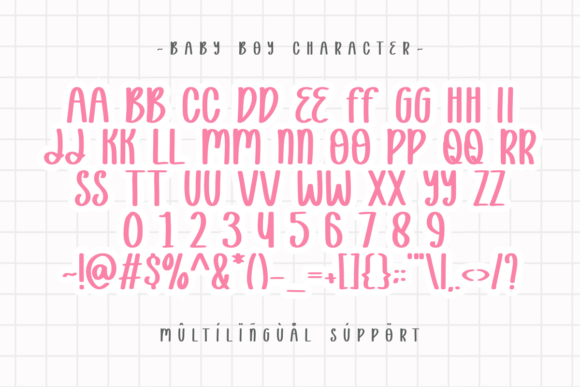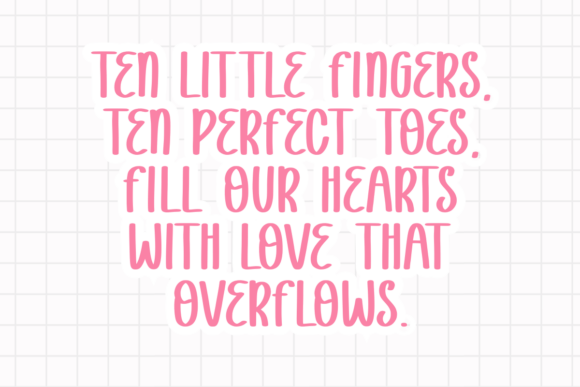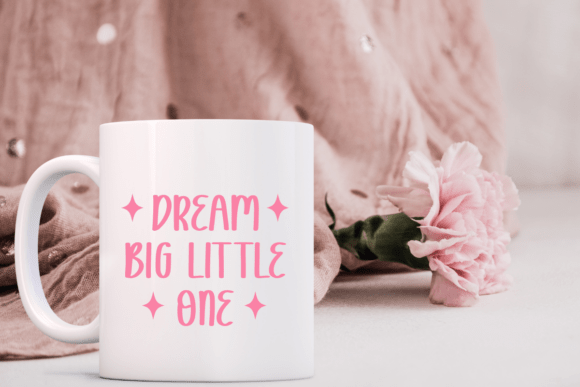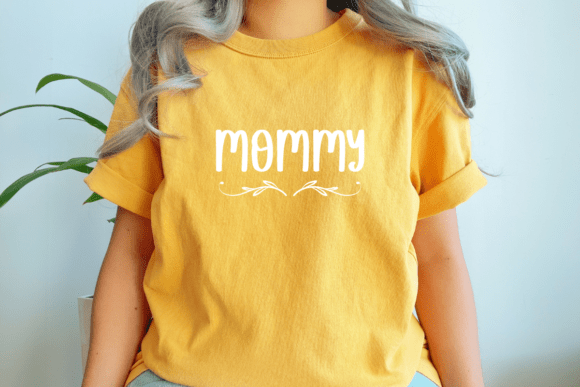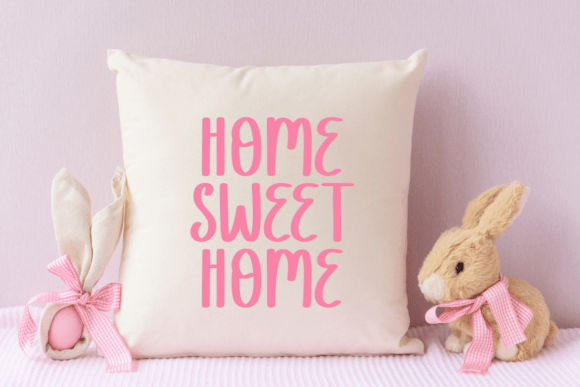
Baby Boy Font: The Cute and Bold Display Font to Elevate Your Designs
Are you looking for a font that can add a touch of cuteness and boldness to your designs? Look no further than the Baby Boy font! This adorable display font is perfect for designers and crafters who want to create visually appealing and unique designs that stand out from the crowd. In this article, we’ll explore the features and benefits of the Baby Boy font, and how it can bring your designs to life.
What is Baby Boy Font?
Baby Boy font is a cute and bold display font that is designed to add a playful touch to your designs. Its unique and beautiful style makes it perfect for a variety of design projects, from baby-themed designs to bold and eye-catching headlines. The font is carefully crafted to bring a sense of fun and innocence to your designs, making it ideal for designers and crafters who want to create engaging and adorable content.
Key Features of Baby Boy Font
- Cute and Bold Design: The Baby Boy font features a bold and playful design that is sure to capture attention. Its cute and charming style makes it perfect for baby-themed designs, kids’ products, and more.
- Unique and Beautiful Style: The font has a unique and beautiful style that sets it apart from other display fonts. Its elegant and refined design makes it perfect for a variety of design projects.
- Easily Readable: Despite its bold and playful design, the Baby Boy font is easily readable, making it perfect for headlines, titles, and other design elements.
- Versatile: The Baby Boy font is versatile and can be used for a variety of design projects, from digital designs to print materials.
Benefits of Using Baby Boy Font
Using the Baby Boy font in your designs can bring numerous benefits. Here are some of the advantages of using this adorable display font:
- Adds a Touch of Cuteness: The Baby Boy font adds a touch of cuteness and playfulness to your designs, making them more engaging and appealing.
- Creates Visual Interest: The bold and playful design of the Baby Boy font creates visual interest and draws attention to your designs.
- Enhances Brand Identity: Using a unique and beautiful font like Baby Boy can help enhance your brand identity and make your designs more recognizable.
- Easy to Use: The Baby Boy font is easy to use and can be easily integrated into your design projects.
How to Use Baby Boy Font in Your Designs
Using the Baby Boy font in your designs is easy and straightforward. Here are some tips on how to get started:
- Choose the Right Design Project: The Baby Boy font is perfect for a variety of design projects, including baby-themed designs, kids’ products, and more.
- Experiment with Different Sizes and Colors: Experiment with different sizes and colors to find the perfect combination that works for your design.
- Pair it with Other Fonts: Pair the Baby Boy font with other fonts to create a unique and visually appealing design.
- Use it for Headlines and Titles: Use the Baby Boy font for headlines and titles to add a touch of cuteness and boldness to your designs.
Inspiration and Ideas for Using Baby Boy Font
If you’re looking for inspiration and ideas for using the Baby Boy font, here are some suggestions:
- Baby-Themed Designs: Use the Baby Boy font to create adorable baby-themed designs, such as baby shower invitations, baby blankets, and more.
- Kids’ Products: Use the Baby Boy font to create fun and playful designs for kids’ products, such as toys, clothing, and more.
- Social Media Graphics: Use the Baby Boy font to create eye-catching social media graphics, such as Facebook posts, Instagram stories, and more.
- Print Materials: Use the Baby Boy font to create visually appealing print materials, such as brochures, flyers, and more.
In conclusion, the Baby Boy font is a cute and bold display font that can add a touch of playfulness and uniqueness to your designs. Its unique and beautiful style makes it perfect for a variety of design projects, from baby-themed designs to bold and eye-catching headlines. With its ease of use and versatility, the Baby Boy font is a great addition to any designer’s toolkit. So why not give it a try and see how it can bring your designs to life?